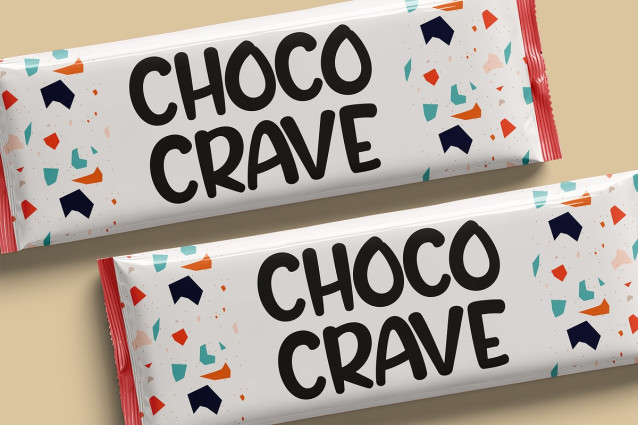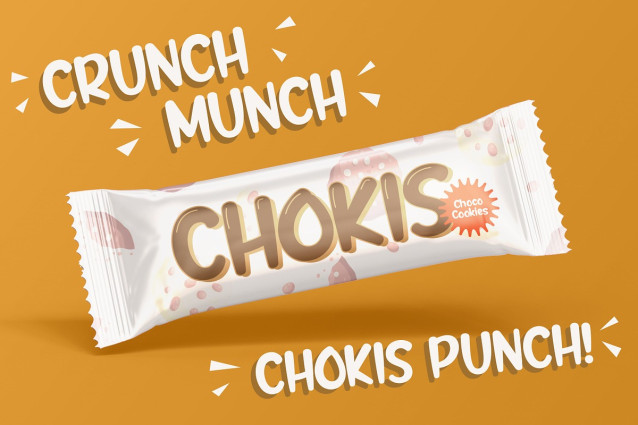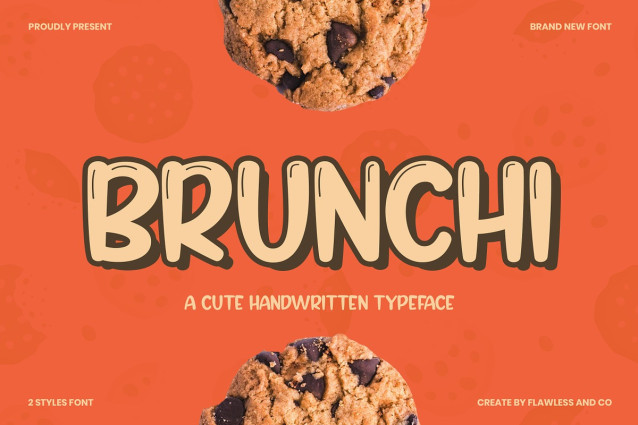
Brunchi Playful Font
Brunchi Playful Font a fun and bouncy handwritten typeface that’s full of character and charm. Inspired by the joy of cookies and childhood treats, Brunchi brings a warm, friendly, and slightly quirky feel to any design. Its rounded edges and playful strokes make it perfect for adding a hand-crafted, inviting vibe to your projects. Brunchi comes in 2 delicious styles — clean and shadowed — that you can mix and match for that extra layer of yum. Whether you’re designing for packaging, kids’ products, snack brands, or just want to sprinkle a bit of cuteness on your layout, Brunchi is the font to reach for!